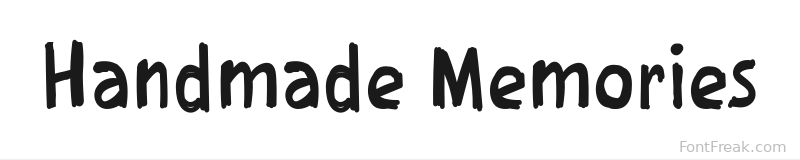
Handmade Memories
About Handmade Memories
Handmade Memories by Galdino Otten Fonts is a charming handwritten typeface that beautifully captures the essence of nostalgia and creativity. This font exudes a warm, personal touch, making it an ideal choice for projects that require a sense of authenticity and emotional resonance. With its playful irregularities and natural flow, Handmade Memories stands out as a decorative font that conveys a handmade quality, perfect for a wide range of applications.
Visually, Handmade Memories features a medium stroke weight with subtle variations that add character and depth. The letters are loosely spaced, enhancing the organic feel of the typeface, while its slightly slanted form gives it a dynamic appearance. The whimsical curves and playful strokes evoke a sense of spontaneity, making it perfect for designs that seek to engage and delight the viewer.
This versatile font finds its best use in projects such as wedding invitations, where a personal touch is paramount, or in children’s books, where its playful nature can capture the imagination. It's also well-suited for restaurant menus, particularly those that emphasize a homey or artisanal vibe, as well as greeting cards and scrapbook layouts that celebrate cherished memories. The target audience for this font includes graphic designers, small business owners, and content creators who are looking to add a unique and heartfelt touch to their work.
What truly sets Handmade Memories apart is its ability to evoke emotion while remaining highly legible. The combination of its handmade aesthetic and practical usability makes it an exceptional choice for anyone looking to create memorable designs. For those interested in this delightful typeface, a Handmade Memories font free download is available, allowing you to incorporate its charm into your projects with ease.